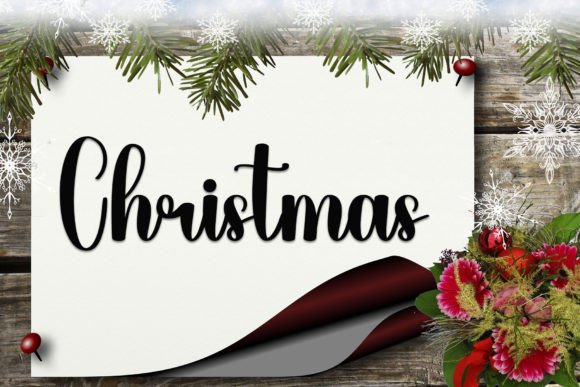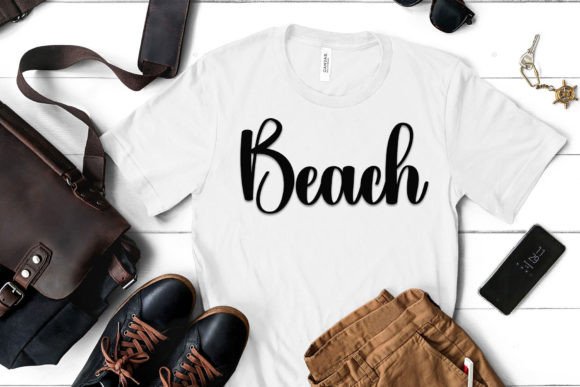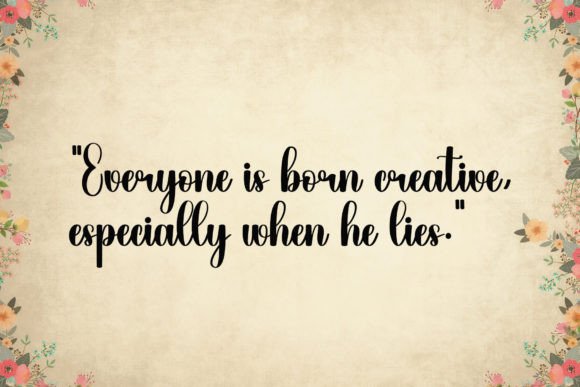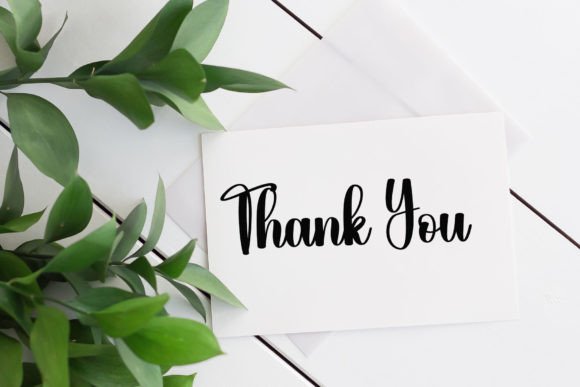
Introducing Christian Font: A Festive and Joyful Typeface for the Holiday Season
Are you looking for a font that embodies the spirit of the holiday season? Do you want to add a touch of charm and nostalgia to your designs? Look no further than Christian Font, a festive and happy typeface that is perfect for greeting cards, gift labels, and holiday-themed projects.
A Font that Captures the Magic of the Holiday Season
Christian Font is a decorative typeface that is designed to bring a cheerful and nostalgic atmosphere to your words. With its unique flair and decorative elements, this font is sure to add a touch of magic to your designs. Whether you’re creating holiday greeting cards, gift labels, or festive posters, Christian Font is the perfect choice.
Key Features of Christian Font
- Decorative Elements: Christian Font features decorative elements that are perfect for adding a touch of festivity to your designs.
- Unique Flair: This font has a unique flair that sets it apart from other typefaces.
- Festive and Happy: This font is designed to bring a cheerful and nostalgic atmosphere to your words.
Christian Font is perfect for designers and crafters who want to add a touch of festivity to their projects. Whether you’re creating holiday-themed designs, greeting cards, or gift labels, this font is sure to bring a smile to your customers’ faces.
Why Choose Christian Font?
There are many reasons why you should choose Christian Font for your holiday-themed projects. Here are just a few:
- High-Quality Design: This font is designed to high-quality standards, ensuring that your designs look professional and polished.
- Versatile: Christian Font can be used for a wide range of projects, from holiday greeting cards to gift labels and festive posters.
Tips and Tricks for Using Christian Font
Here are some tips and tricks for using Christian Font:
- Experiment with Different Sizes: Christian Font looks great in a variety of sizes, so don’t be afraid to experiment.
- Pair with Other Fonts: This font pairs well with other festive fonts, so try pairing it with a sans-serif font for a unique look.
- Use for Headings and Titles: Christian Font is perfect for headings and titles, so use it to add a touch of festivity to your designs.
Christian Font is a festive and happy typeface that is perfect for the holiday season. With its decorative elements and unique flair, this font is sure to add a touch of charm and nostalgia to your designs. Whether you’re a designer or crafter, Christian Font is a great choice for holiday-themed projects. So why wait? Download Christian Font today and start creating your own festive and happy designs!